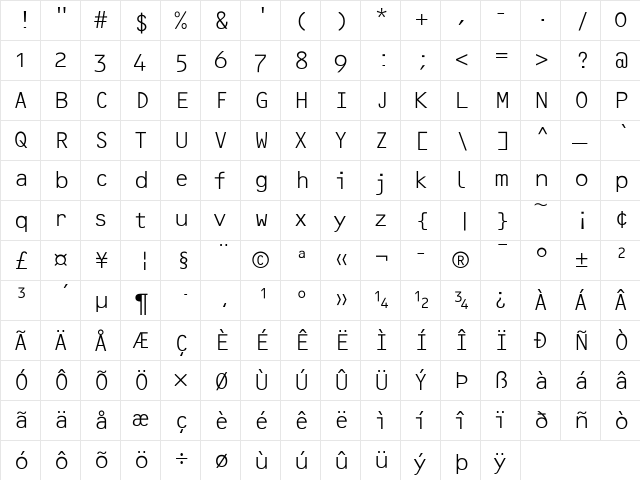
OCRF Medium Font Preview
OCRF Medium
OCRF Medium Font Details
| Foundry | Copr. Dutch Design, Albert-Jan Pool, . Published by FontShop International. FontFont release |
Design Context for OCRF Typeface
OCRF offers clean, dependable letterforms without strong stylistic allegiance, making it a practical choice for designers who need flexibility.
Pro Tip: Pair OCRF with a font of contrasting weight or personality to build a more expressive typographic hierarchy.